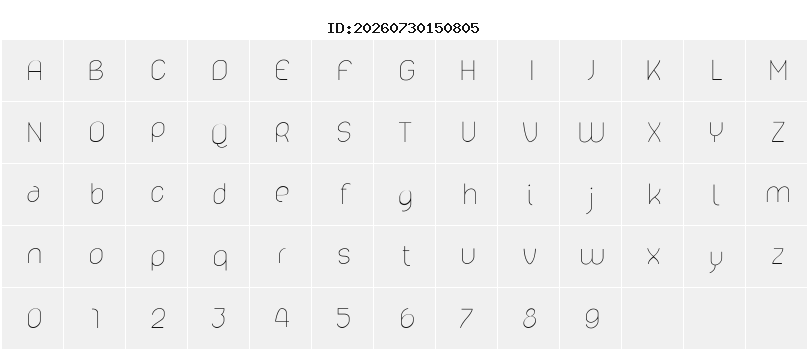
lelim 200 Preview
• Font Name: lelim 200
• Full Font Name: lelim 200
• Copyright: Stefan Motzigemba
• Designer: Stefan Motzigemba
• Manufacturer: Stefan Motzigemba
About lelim 200.ttf
lelim 200.ttf is a modern, elegant sans-serif font designed for ultimate readability and visual harmony. Perfect for branding, headlines, web design, and print materials.